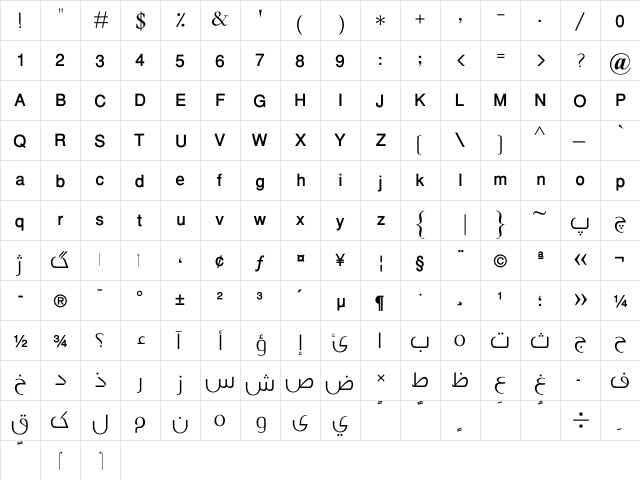
AGT Sharana Regular Font Preview
AGT Sharana Regular
| Designer | Ahmad Gul Totakhyl |
Design Context for AGT Sharana Typeface
AGT Sharana offers clean, dependable letterforms without strong stylistic allegiance, making it a practical choice for designers who need flexibility.
Pro Tip: Pair AGT Sharana with a font of contrasting weight or personality to build a more expressive typographic hierarchy.